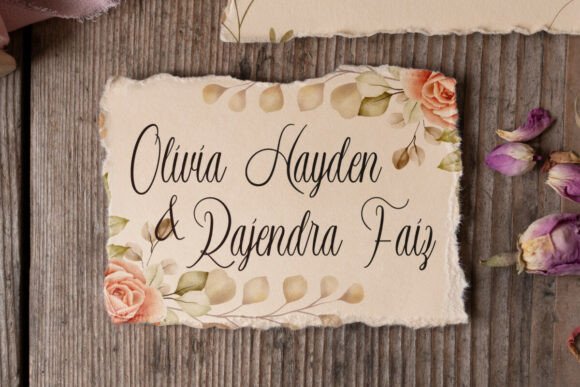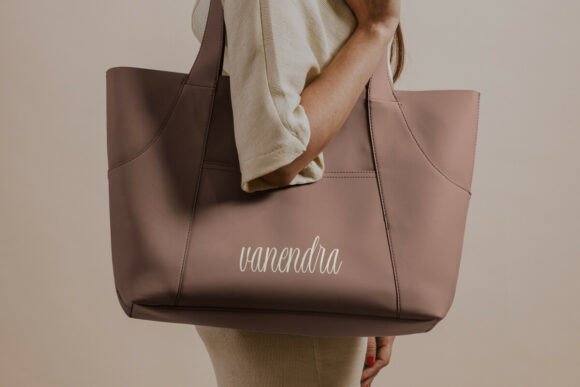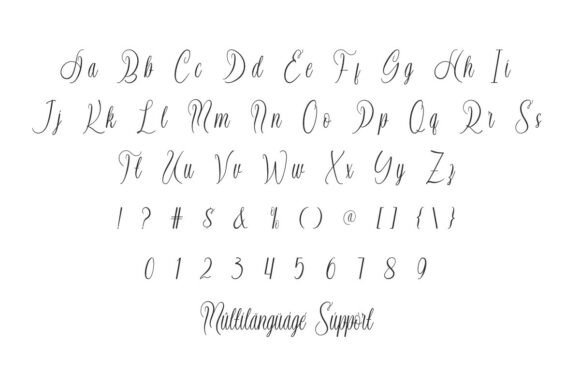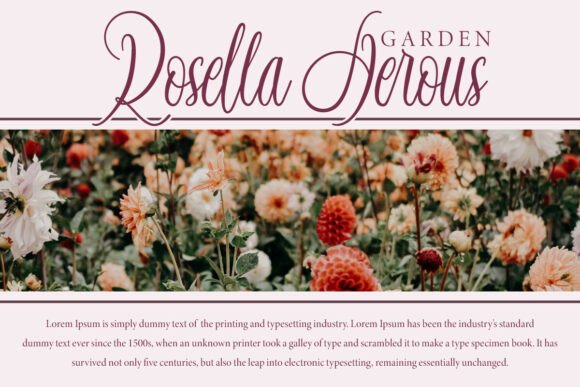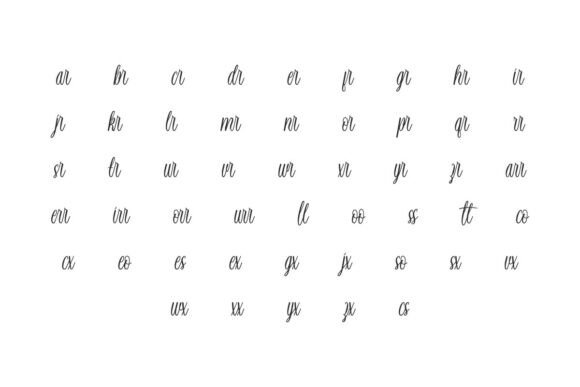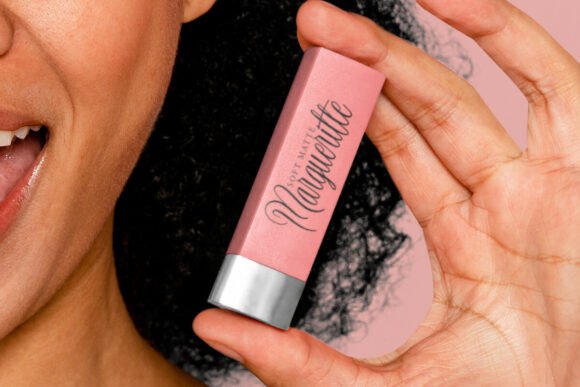
Introduction to Rosella Aerous Font
Have you ever been in the middle of a creative project, staring at a blank page or screen, and suddenly a burst of inspiration strikes? You envision the perfect design, with elegant lettering and flowing lines that transport your audience to a world of romance and whimsy. For designers seeking that perfect touch, the Rosella Aerous Font is a treasure trove of inspiration.
This exquisite calligraphy script font boasts a charming, handwritten style that’s perfect for a wide range of designs, from posters and invitations to brochures, covers, and custom designs. With its lovely flowing lines and high-quality aesthetic, the Rosella Aerous Font is an invaluable design resource for anyone looking to elevate their creative projects.
Key Features of Rosella Aerous Font
- High-quality, professional font suitable for creative projects, including graphic design, digital art, and more.
- Supports a wide range of languages, making it a versatile font for global design projects.
- Designed with a unique, elegant style that sets it apart from other fonts, perfect for adding a touch of sophistication to any creative project.
Honest Review: Rosella Aerous Font
I recently had the chance to work with the Rosella Aerous Font, and I must say it’s been a game-changer for my creative projects. This beautiful, high-quality font is perfect for designers who need a versatile and elegant design resource.
- ✨ The font is highly legible, making it perfect for body text and titles.
- ✨ The transparent background allows for seamless integration with any design element.
- ✨ The font is available in a range of weights and styles, giving you the flexibility to create unique and captivating designs.
- ⚠️ The font is only available in a limited number of languages, which may be a concern for designers working on international projects.
- ⚠️ The font may not be as effective for headings or titles that require a bold, attention-grabbing look.
Overall, I’m thoroughly impressed with the Rosella Aerous Font. Its high quality and versatility make it an excellent addition to any designer’s toolkit. I highly recommend it for designers working on creative projects that require a touch of elegance and sophistication.
Getting the Most Out of Rosella Aerous Font
To get the most out of Rosella Aerous Font, use it in combination with other design elements such as images, graphics, and shapes to create engaging and visually appealing content. Experiment with different font sizes, colors, and styles to add depth and interest to your design project.
Rosella Aerous Font is commonly used in various design projects such as infographics, social media graphics, presentations, and documents. Its high quality and transparent background make it an ideal choice for designers who want to create visually appealing and engaging content.